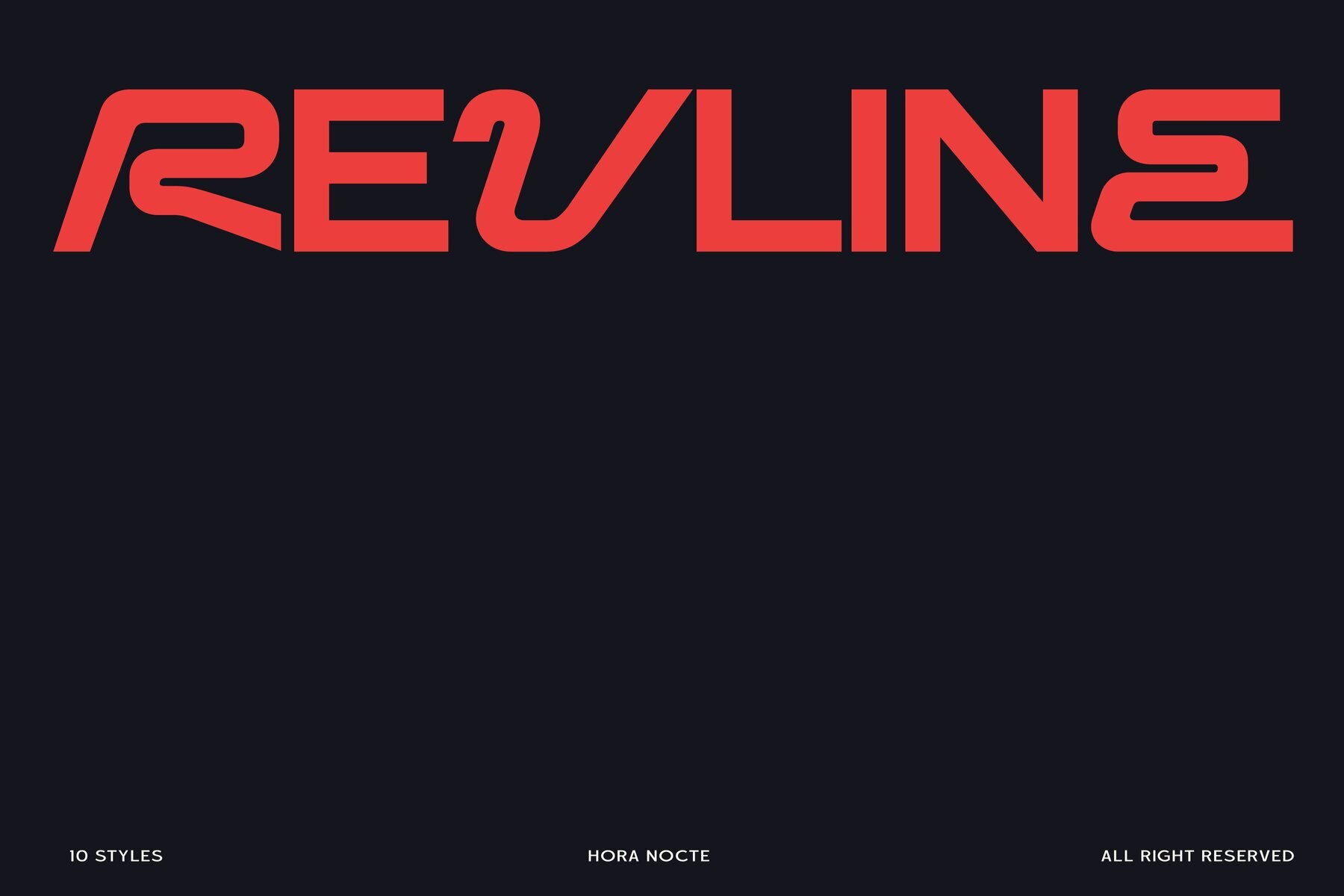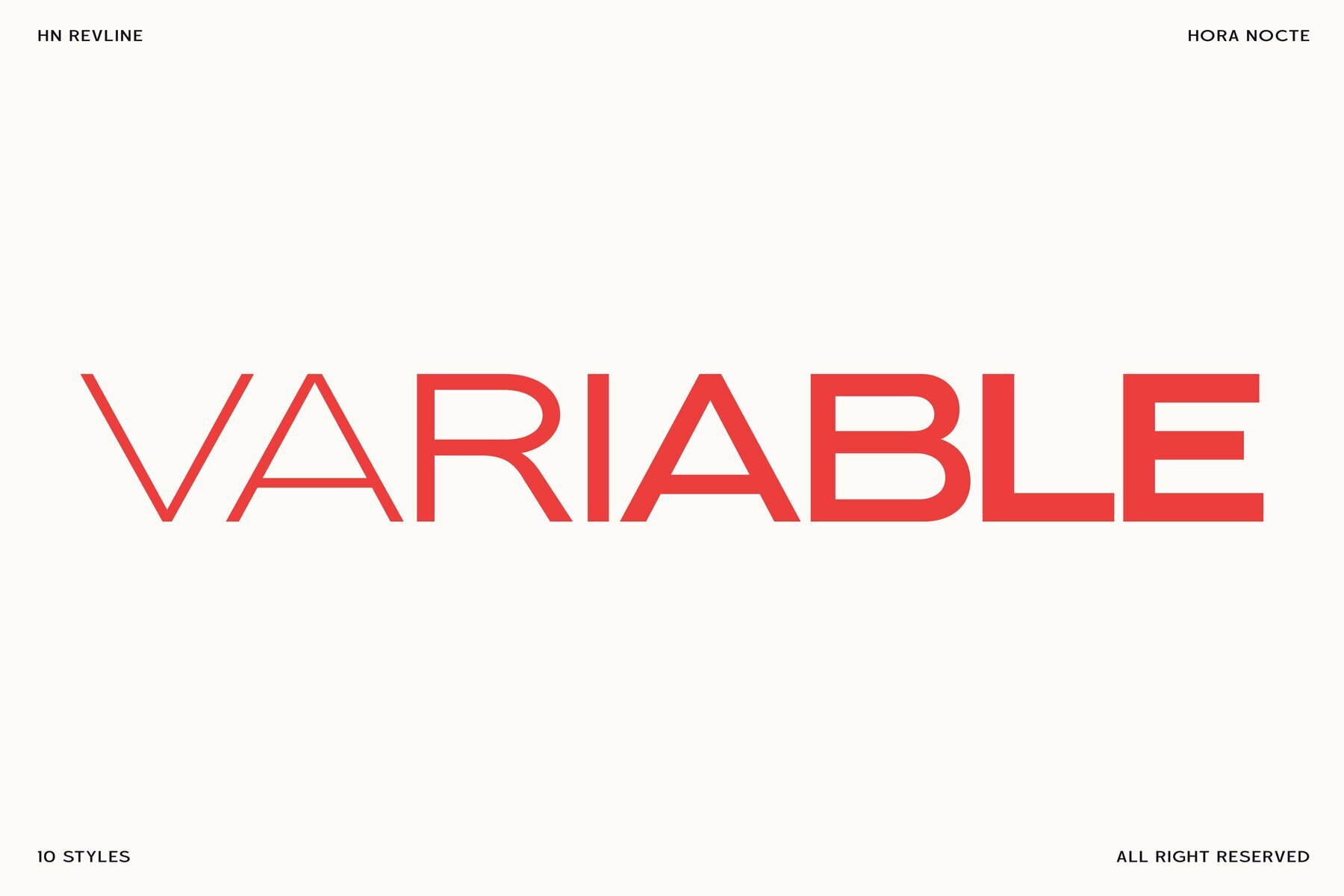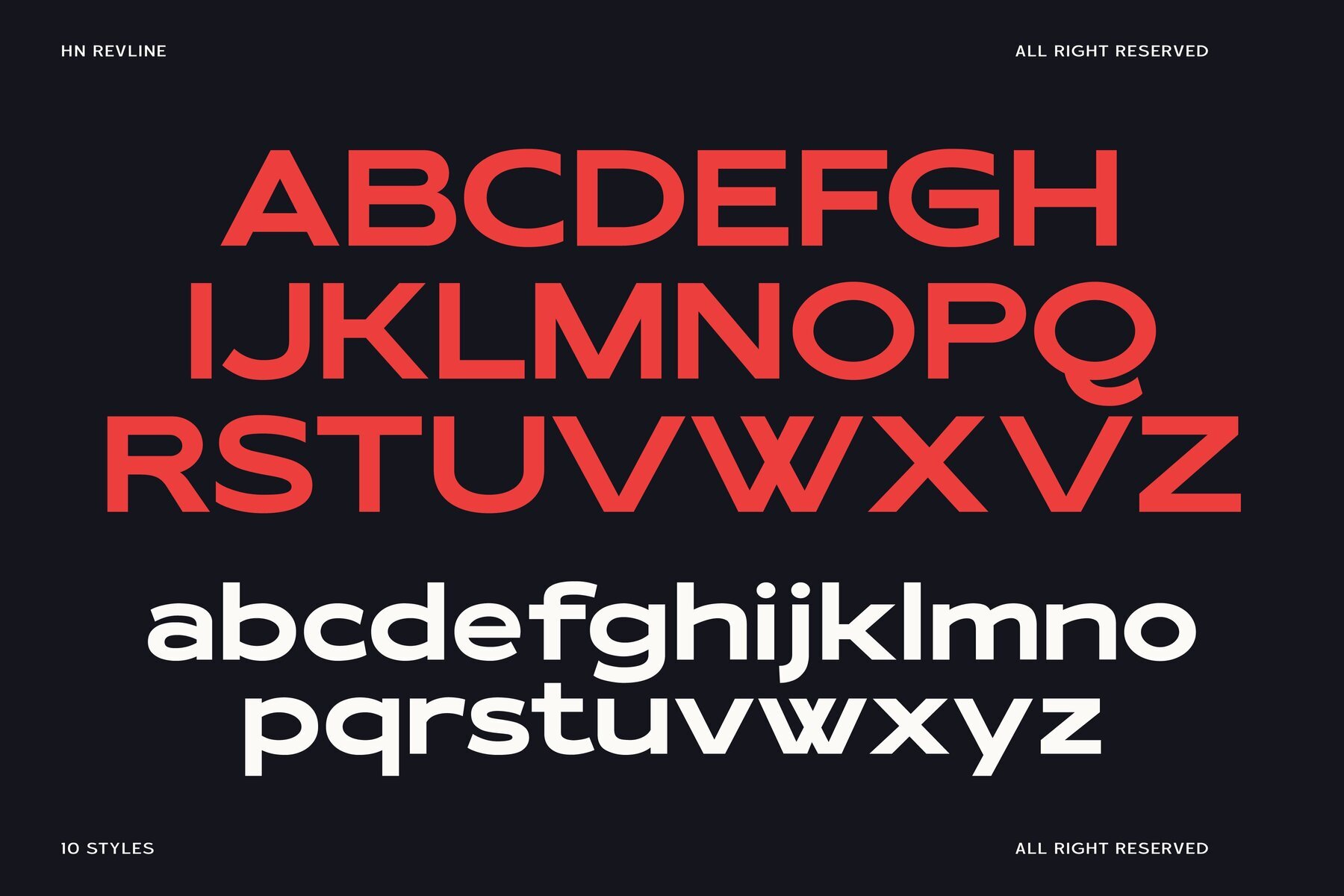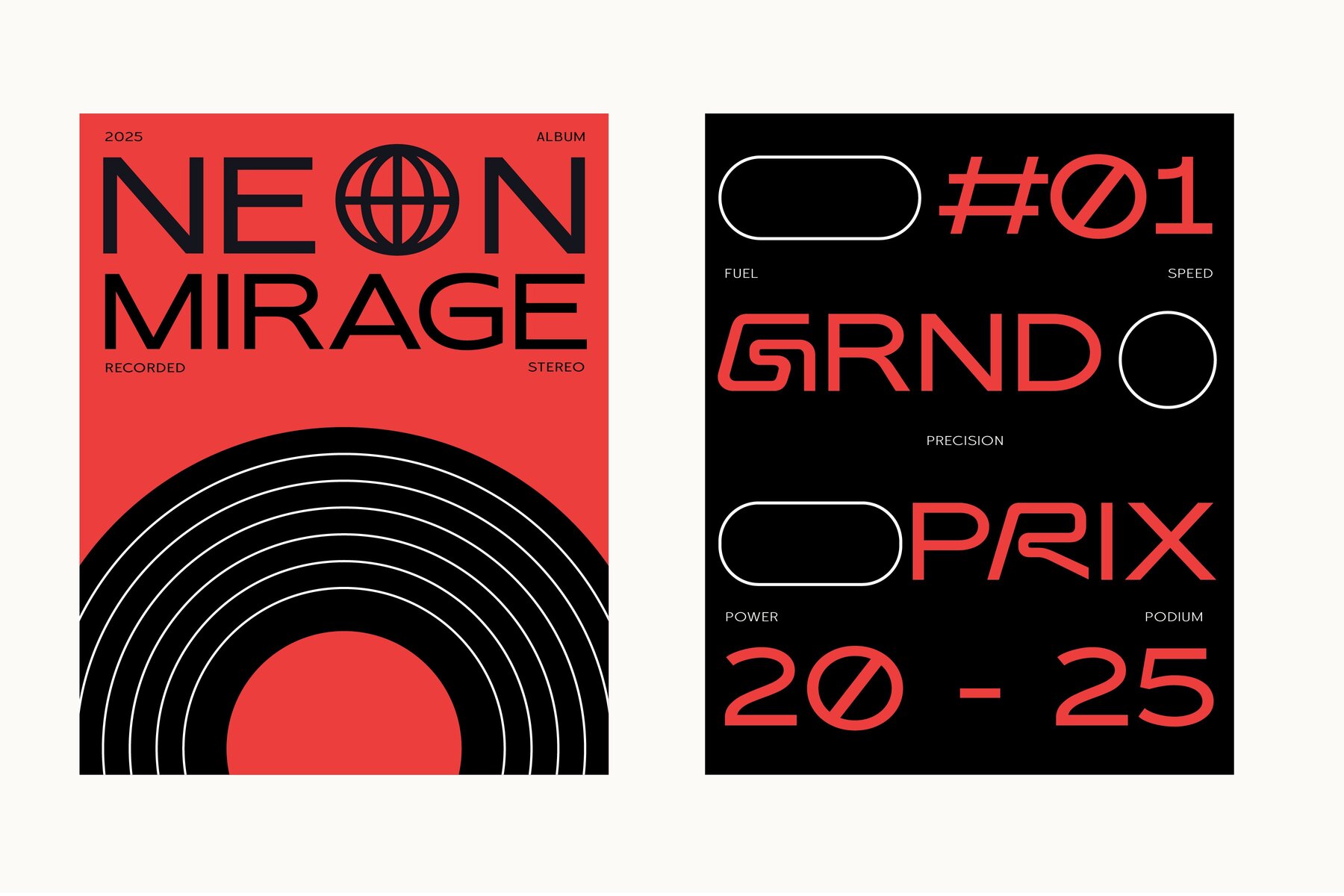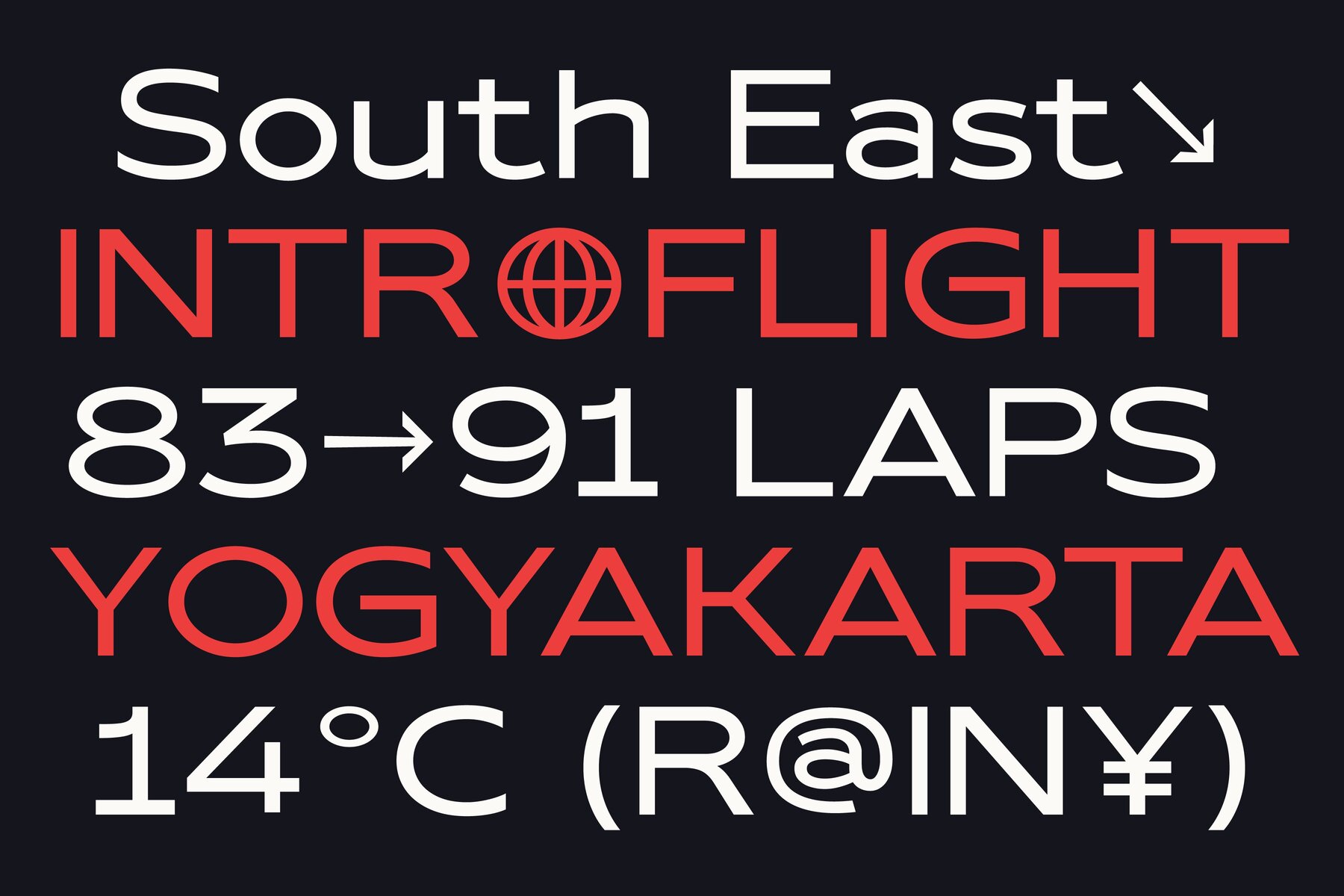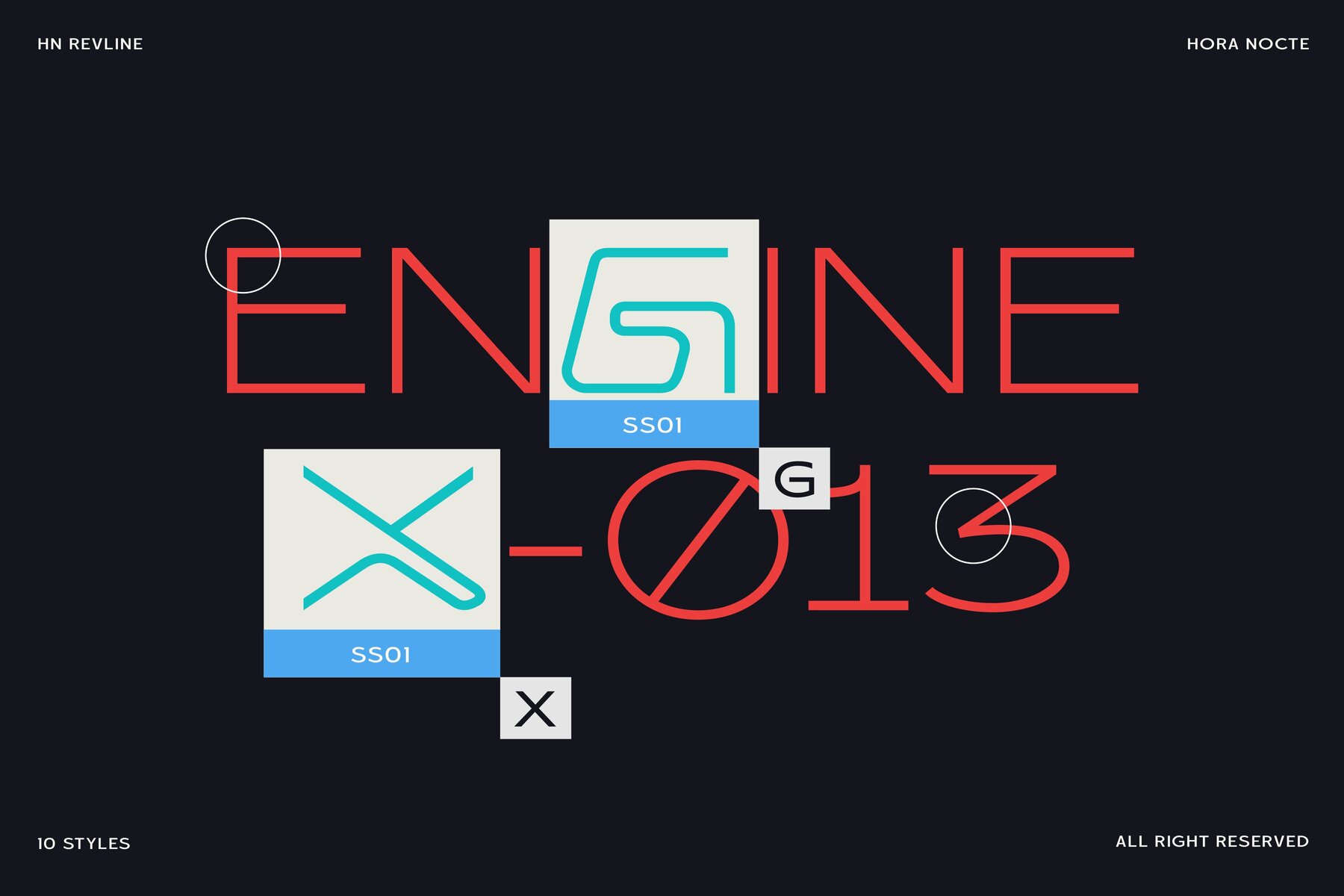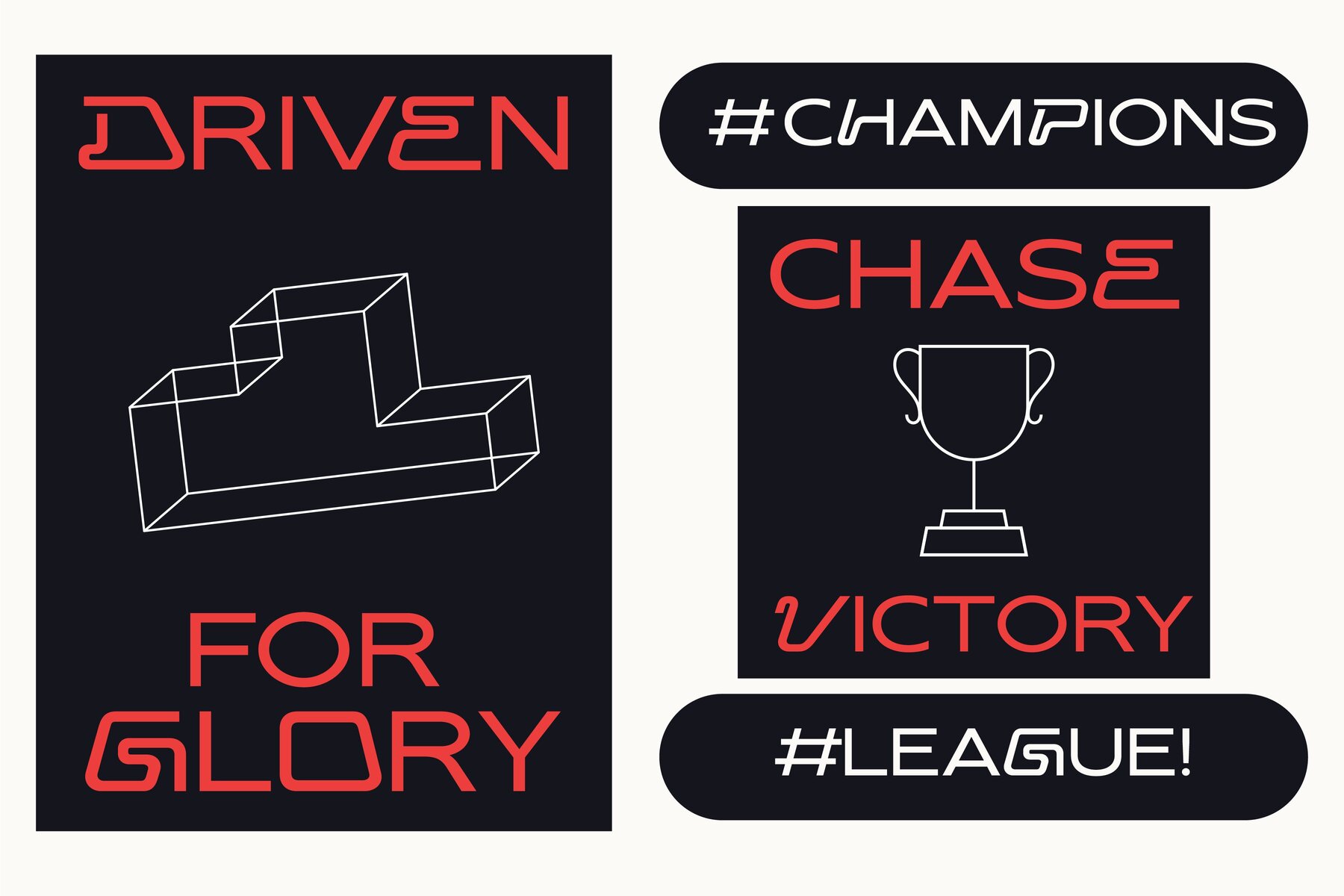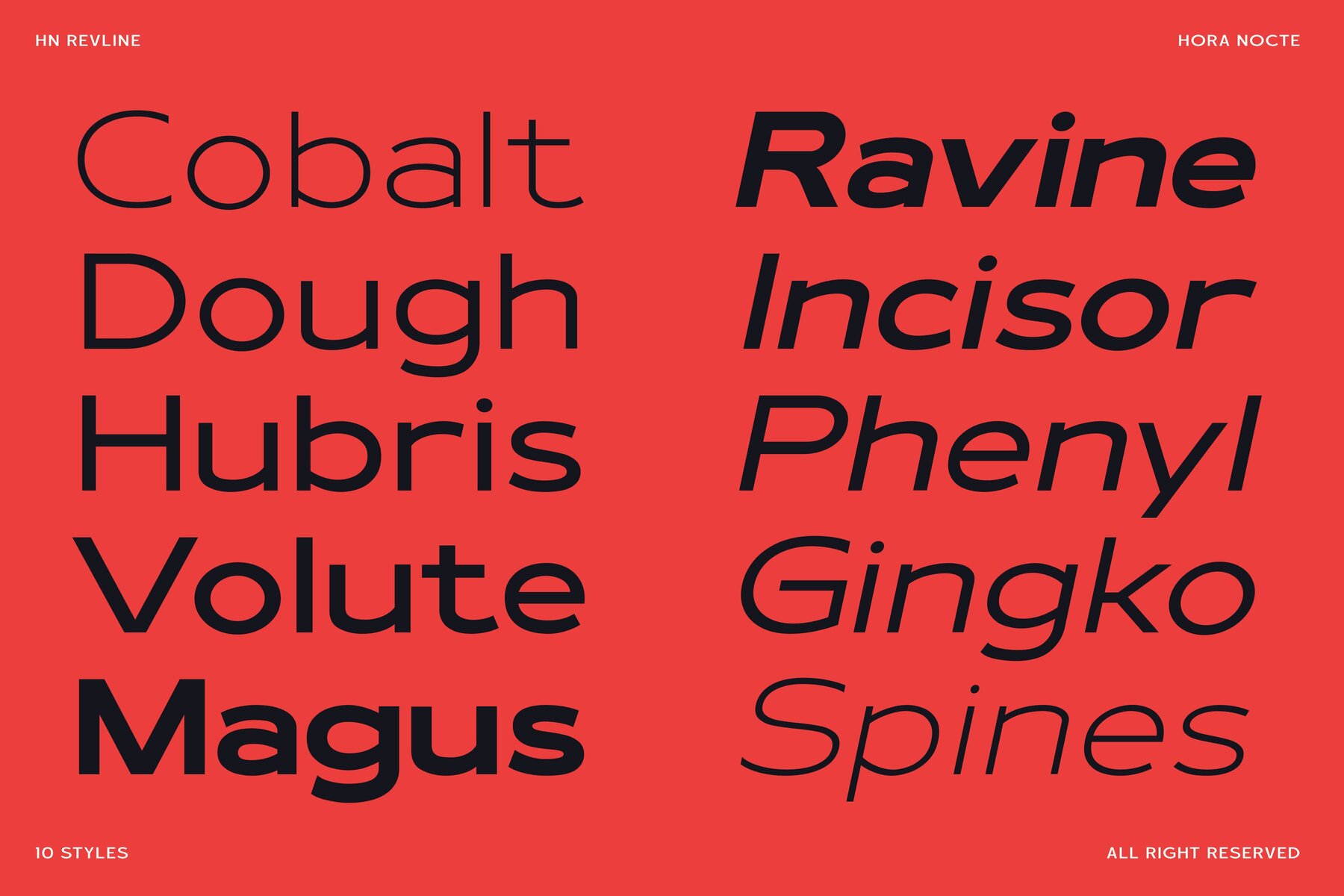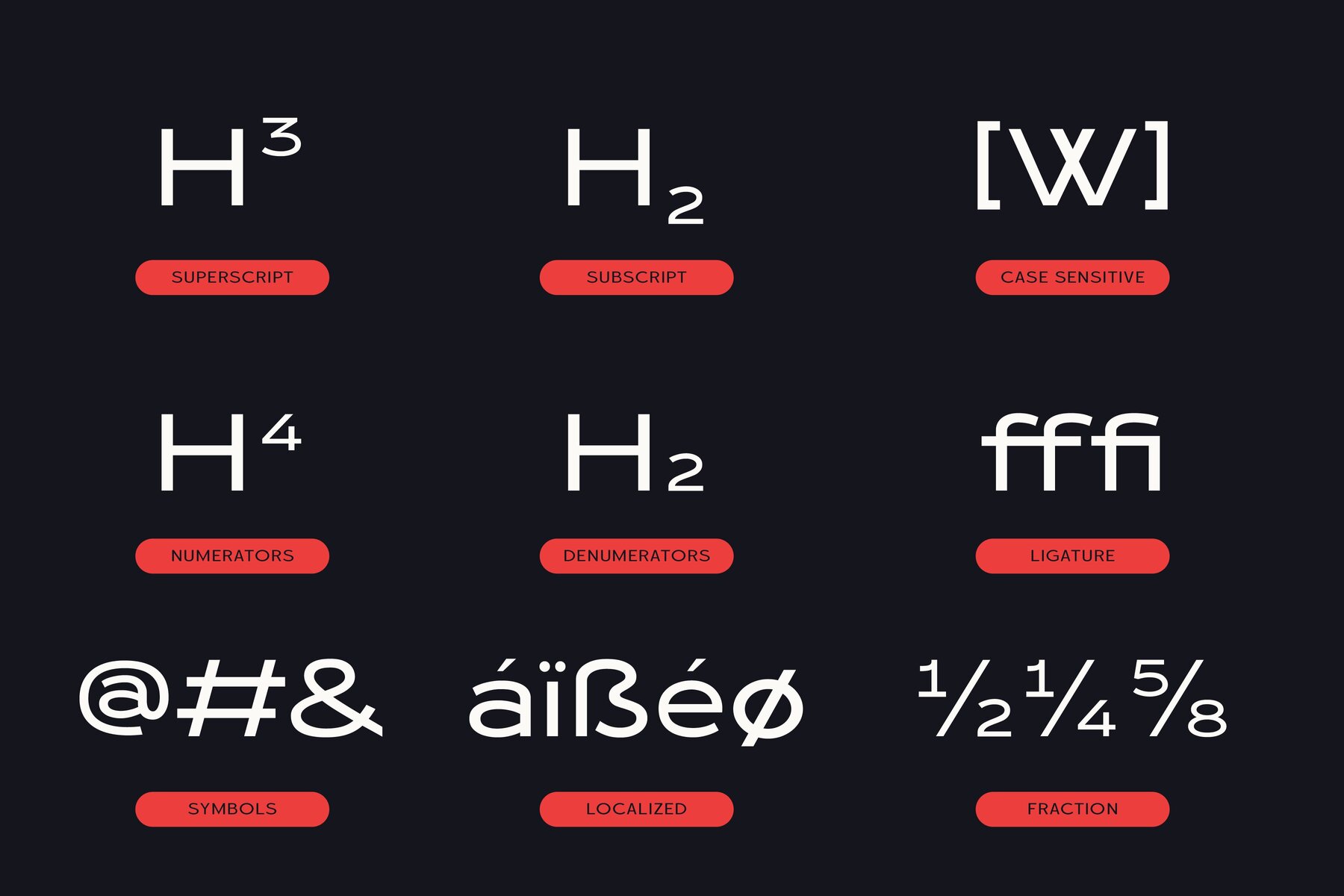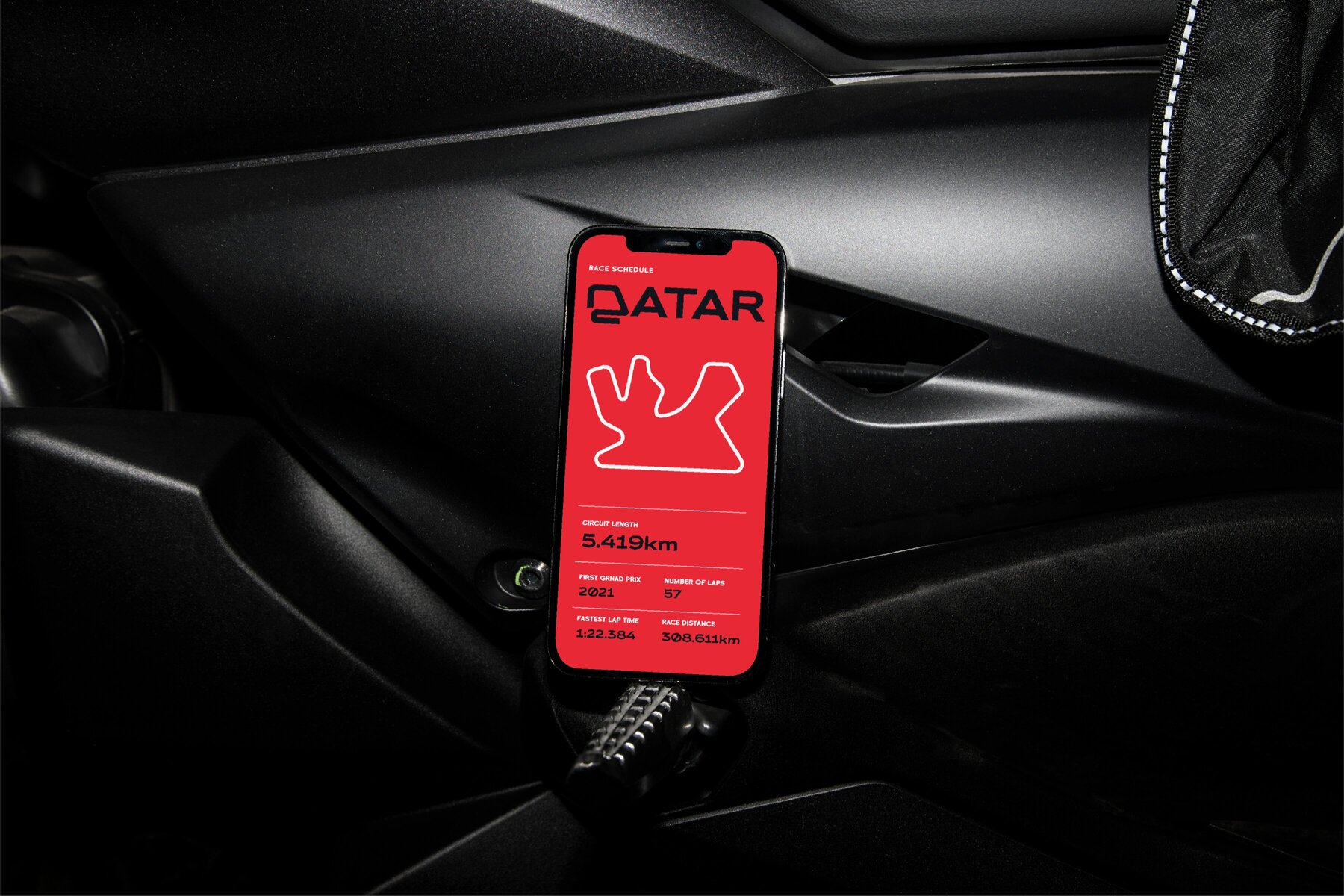
HN Revline Font
HN REVLINE embodies motion, energy, and precision in a sleek sans serif design. Drawing inspiration from racing, aerodynamics, and cutting-edge technology, it captures the essence of speed with its sharp geometry and bold rhythm. Ideal for motorsport branding, digital interfaces, esports logos, and high-performance design systems, HN REVLINE offers versatility in both display and identity work. From dynamic headlines to streamlined tech layouts, it adapts with ease.HN REVLINE: A Futuristic Sans Serif Typeface